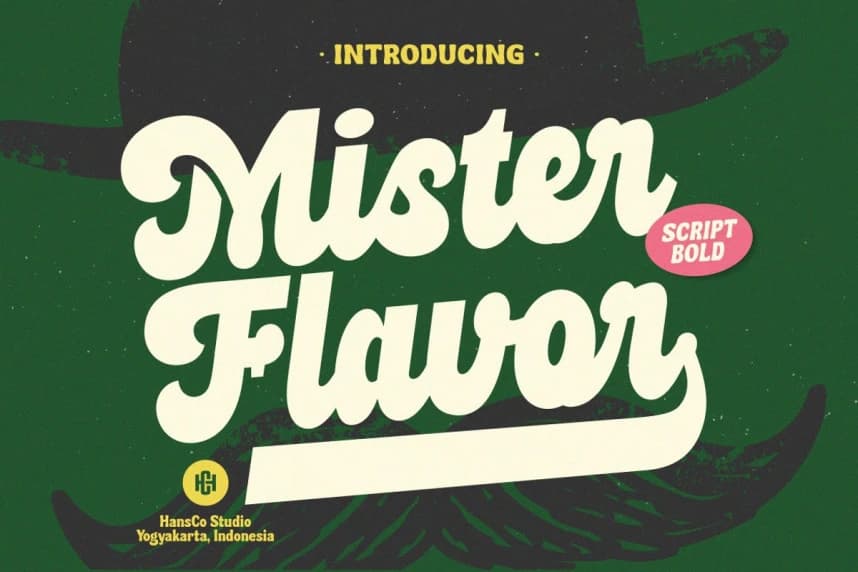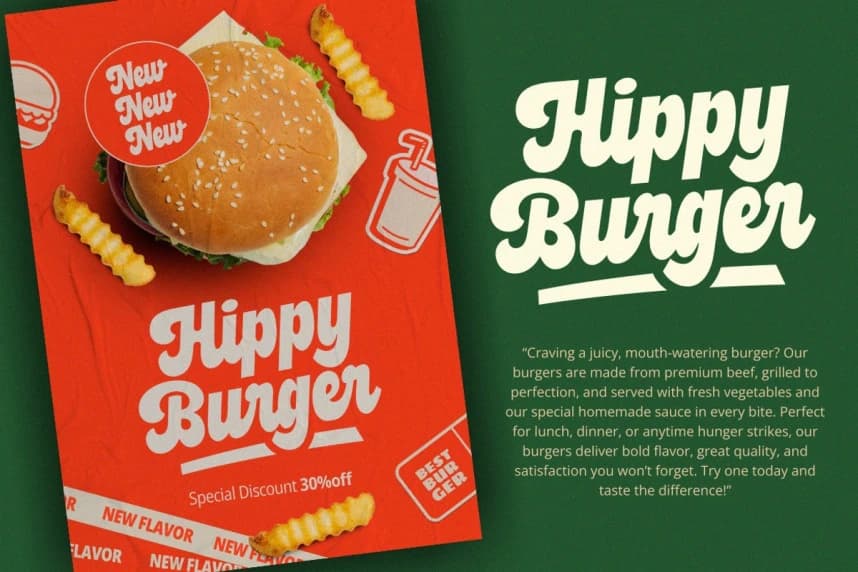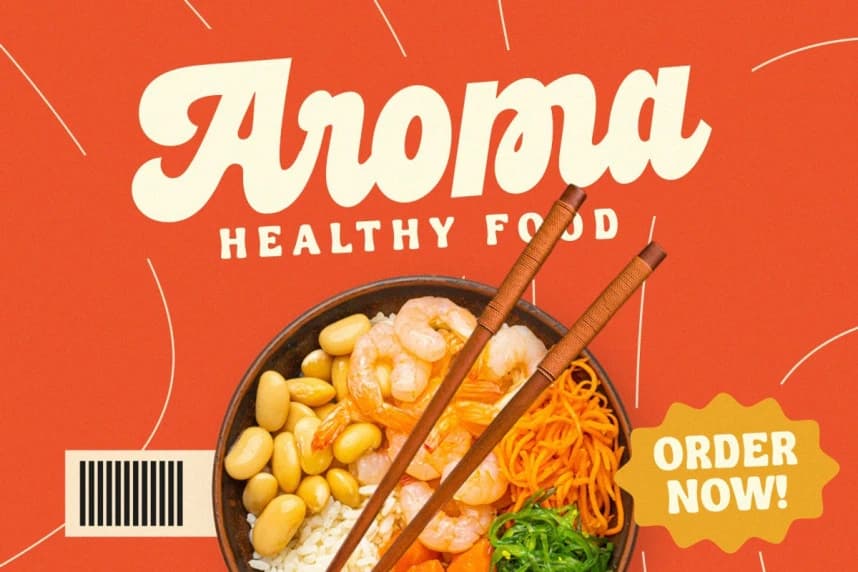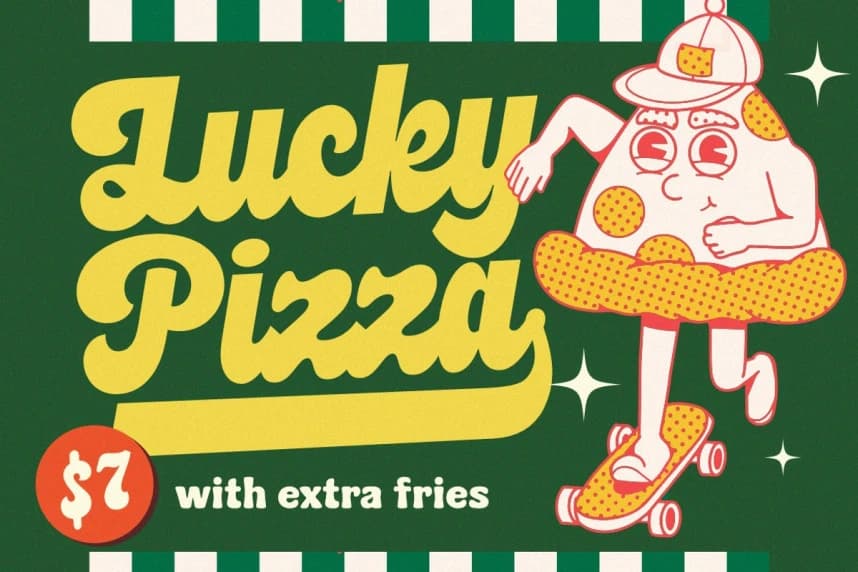
Mister Flavor Font
Mister Flavor Font - Bring your brand to life with this bold modern script font designed to stand out. Featuring thick, confident strokes and elegant swash alternates, this font blends a stylish handwritten feel with a clean, contemporary look.